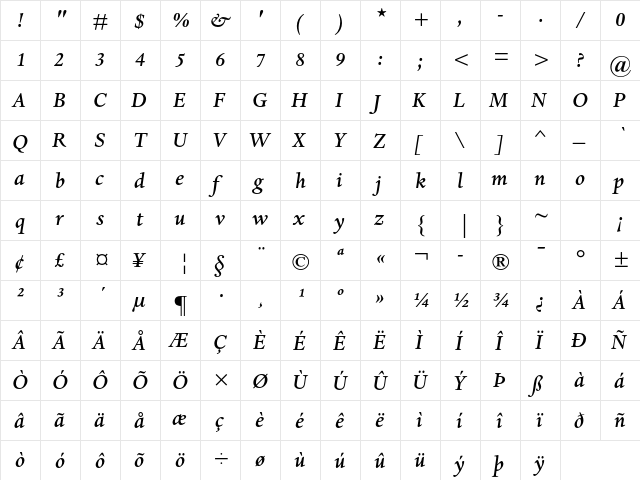
Dante MT Std Medium Italic
| Designer | Giovanni Mardersteig |
Design Context for Dante MT Std Typeface
Dante MT Std is a composed and adaptable typeface that performs quietly and consistently across a wide range of design contexts. Its italic angle brings a sense of urgency and motion to the letterforms.
Pro Tip: Use Dante MT Std for emphasis, pull quotes, and subheadings where its slanted energy can add rhythm to the layout.